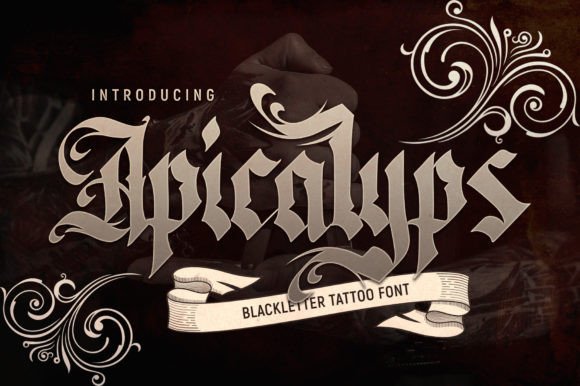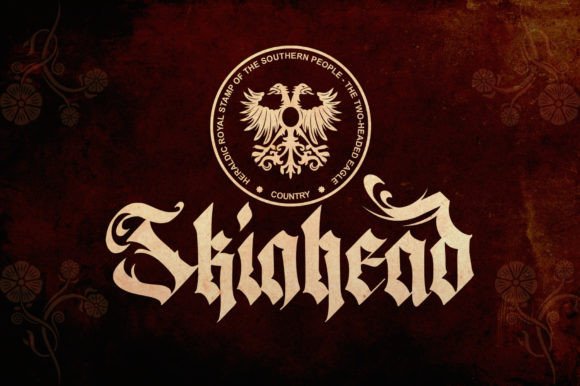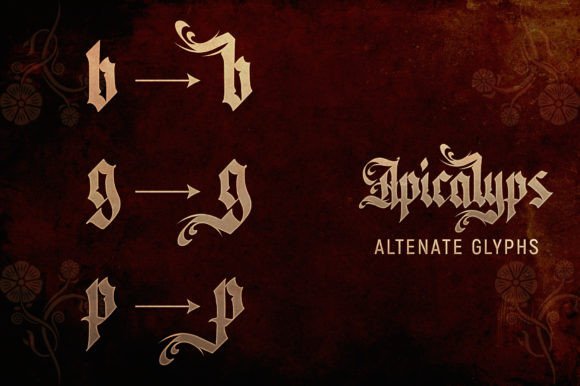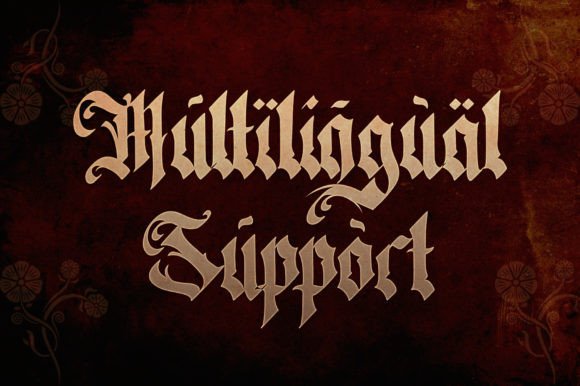
Apicalyps Font: Bold Blackletter Typography for Tattoo & Logo Design
About the Apicalyps Font
Meet Apicalyps Font, a stunning font that brings a touch of elegance and professionalism to any design. Apicalyps is a contemporary blackletter tattoo font that feels right at home on logos, t-shirt designs, posters, flyers, and other brand identity items. Add it confidently to your projects, and you will love the results.
Apicalyps excels in headline applications, short impactful phrases, and branding elements where a bold, rebellious statement is desired. Its strong forms work well on posters, packaging for edgy products, and even select tattoo designs (given its namesake). Avoid using it for body copy or extended text; its intricate details become fatiguing at smaller sizes.
This blackletter design possesses a powerful, contemporary energy. Brands targeting younger demographics, streetwear, music, or the alternative arts scene would find it particularly effective. Consider pairing it with a clean sans-serif like Montserrat for contrast, or a slightly more geometric sans-serif such as Roboto for a modern edge. A simple serif like Lora could also provide a sophisticated counterpoint.
For a more intense visual, a stark, condensed sans-serif like Bebas Neue could amplify Apicalyps’ rebellious attitude, though this pairing should be used judiciously.